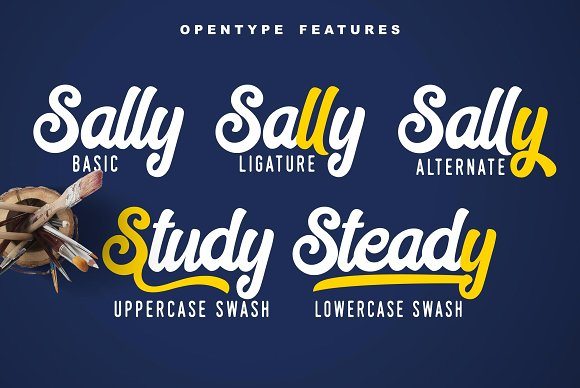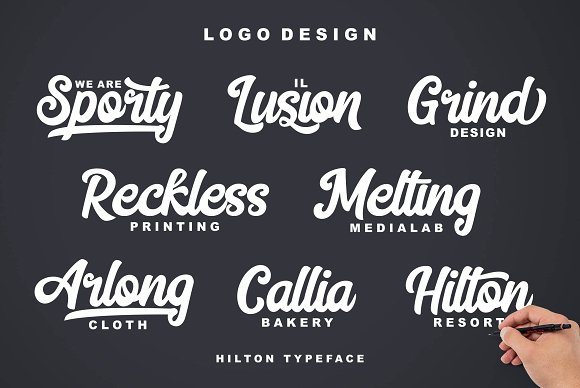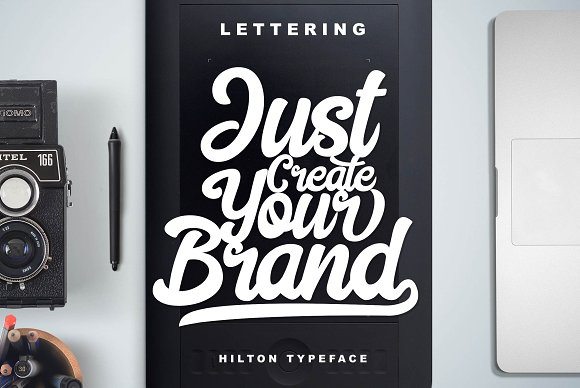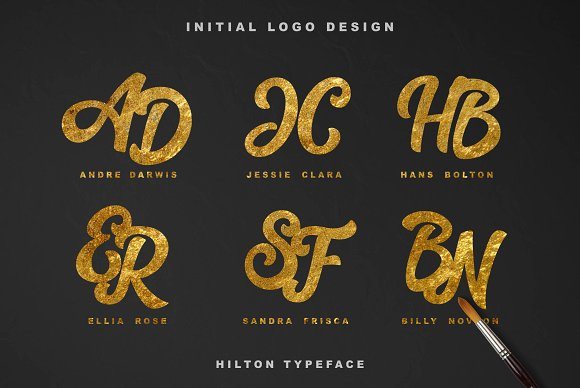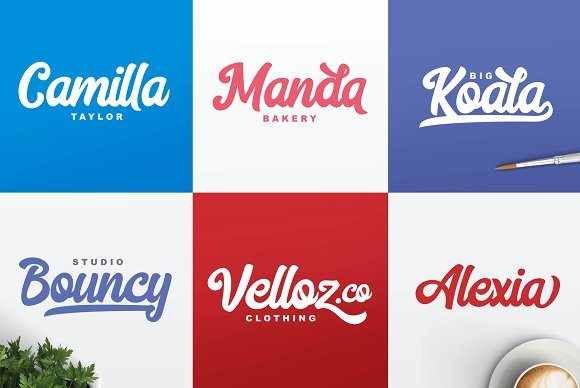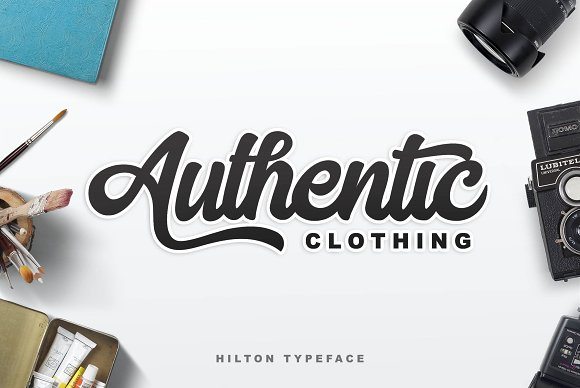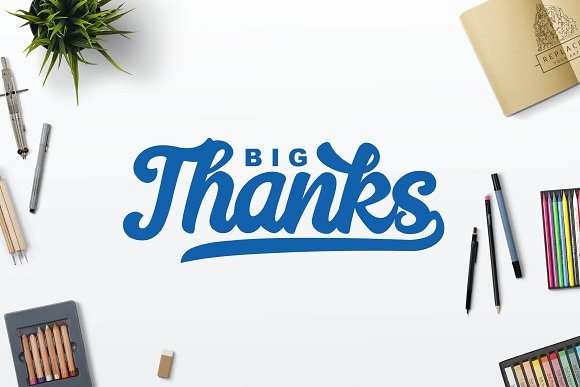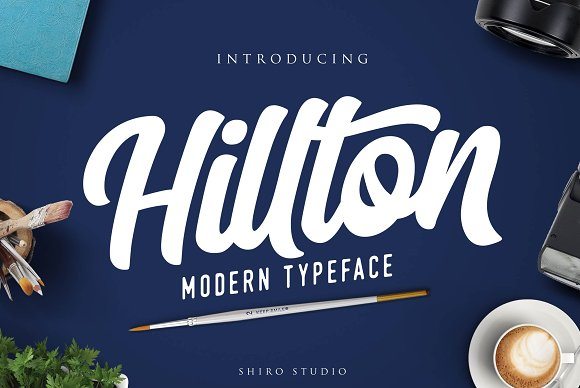
Hilton Script
Hilton Script Font
We present our new product called Hilton. The Hilton font is modern handmade font, dinamic and also has beautiful opentype features. Hilton is easily to use for your work ; Branding, Logo Design, Lettering, Clothing, Poster and others.